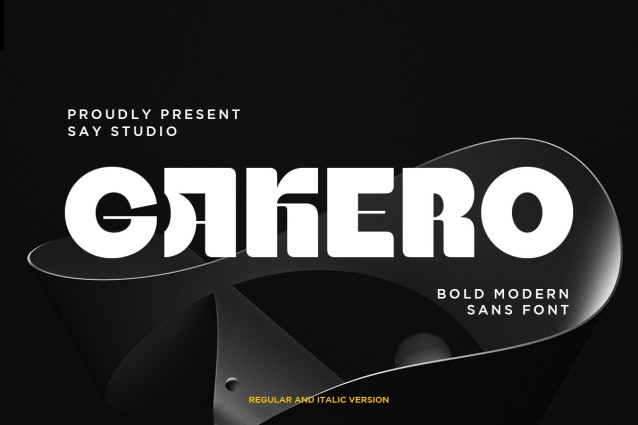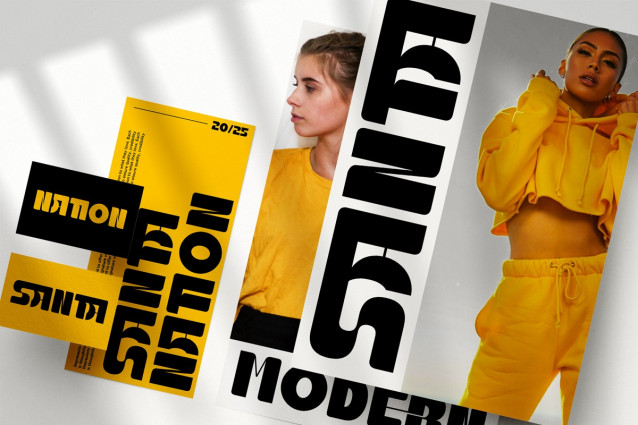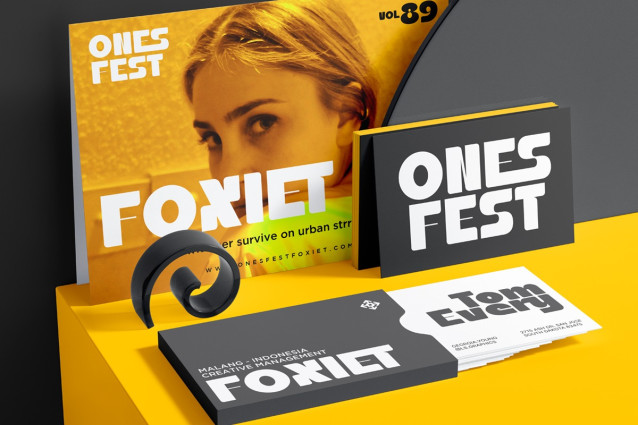
Gakero – Bold Modern Sans Font
Gakero is a bold modern sans font crafted to deliver confidence, clarity, and contemporary style. Featuring geometric letterforms, clean construction, and strong proportions, Gakero creates a striking visual presence that instantly captures attention. Its bold appearance makes it ideal for projects that demand impactful typography while maintaining excellent readability.